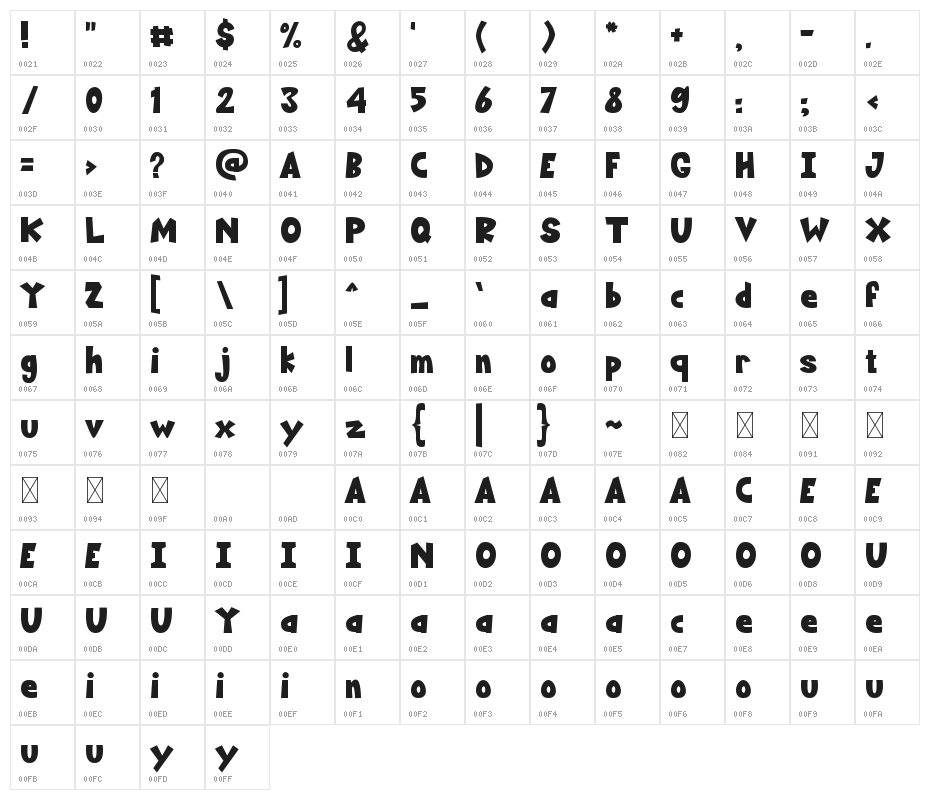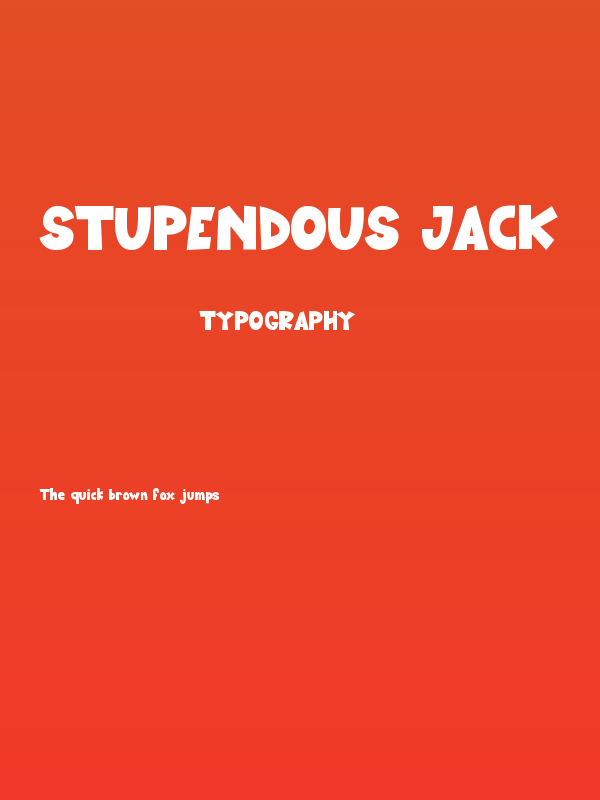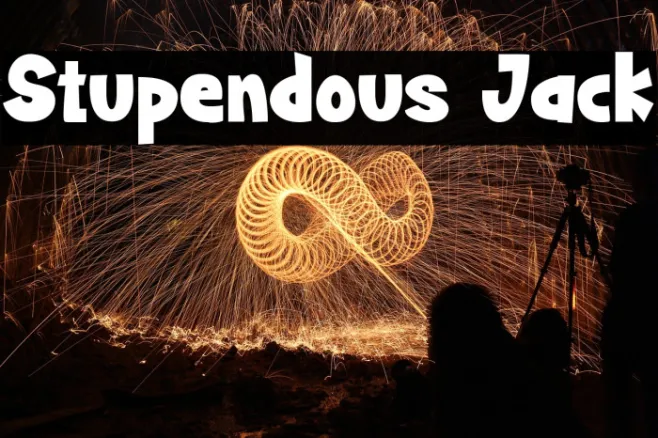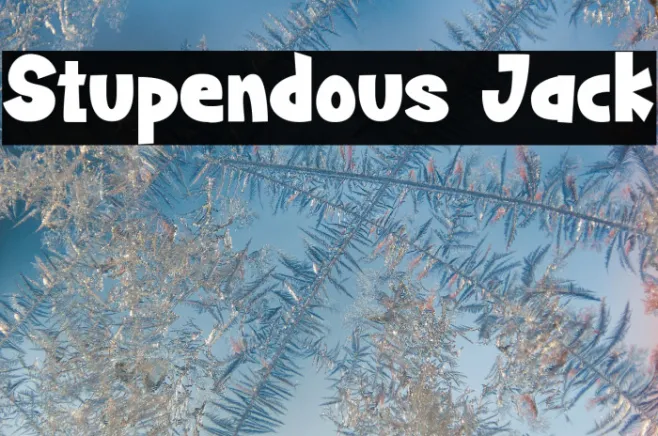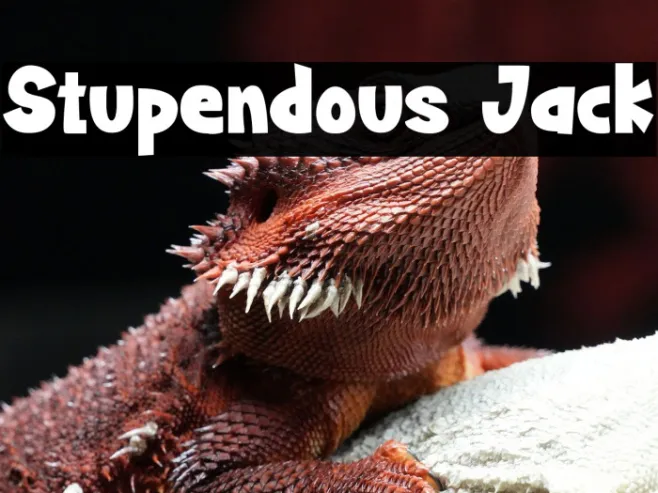
Stupendous Jack Font
Stupendous Jack Description
This font features a playful and bold design, characterized by its exaggerated and uneven letterforms. The uppercase letters are particularly striking, with varying widths and angles that create a dynamic and energetic appearance. The lowercase letters maintain this whimsical style, offering a sense of movement and spontaneity. The numbers are equally bold, ensuring consistency throughout the typeface. Special characters are included, maintaining the same lively aesthetic. This font is perfect for projects that require a fun and eye-catching look, such as children's books, posters, or branding for creative industries.
| Proposed Projects | Ideal for children's books, playful posters, and creative branding. |